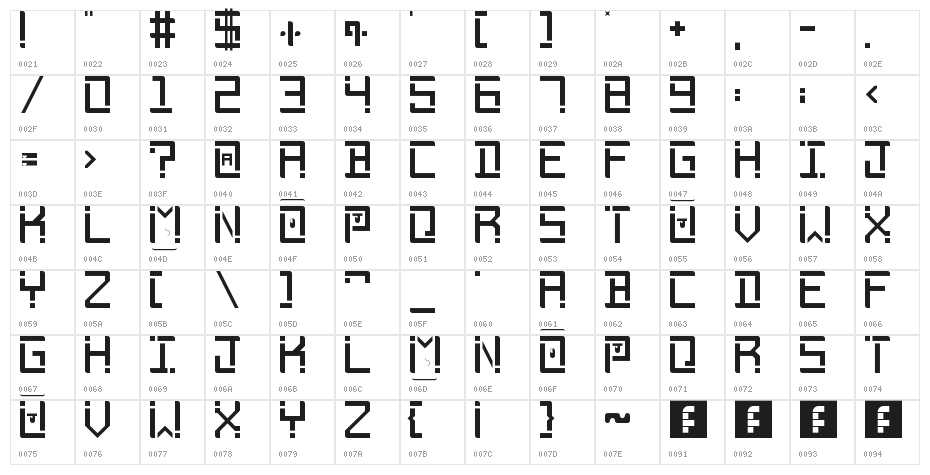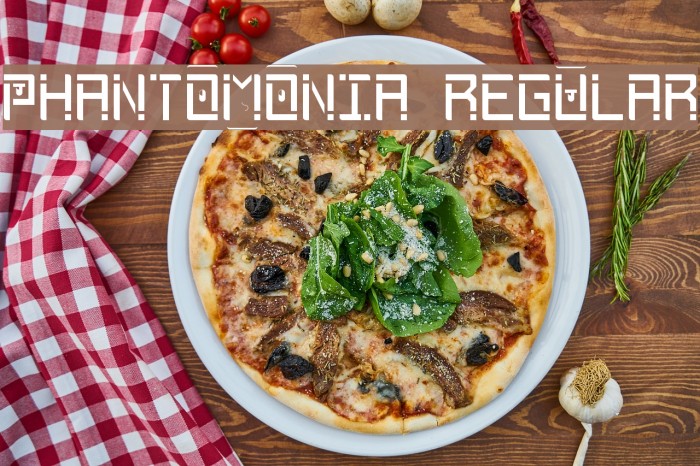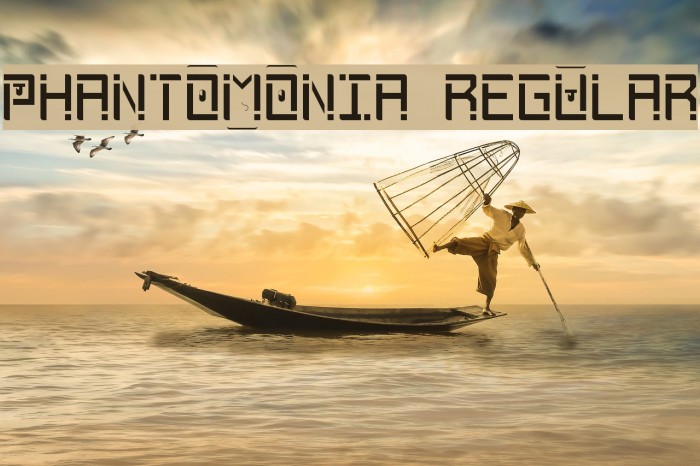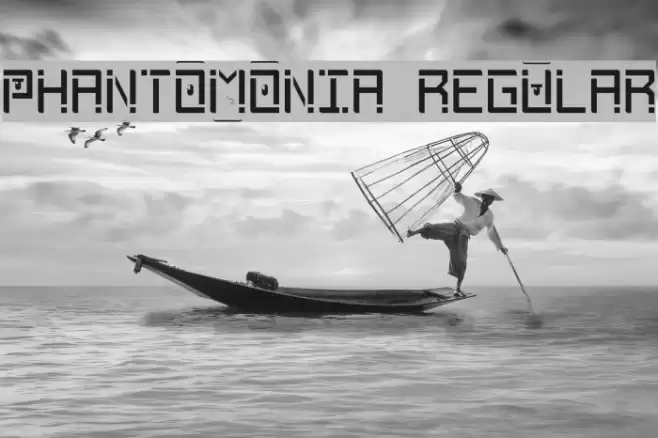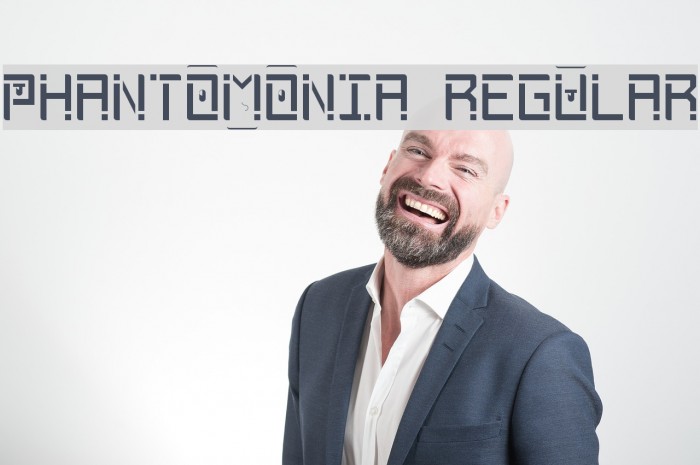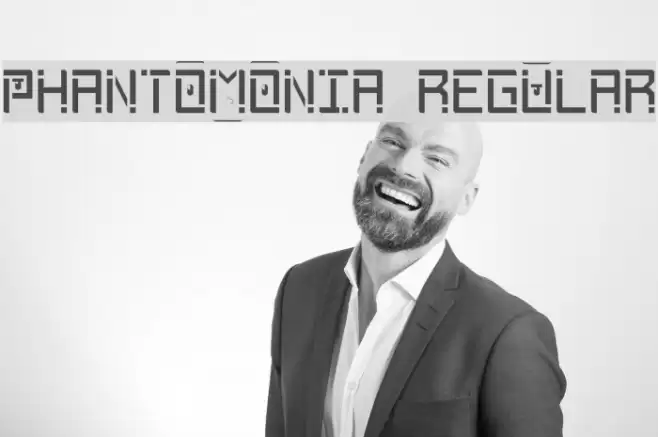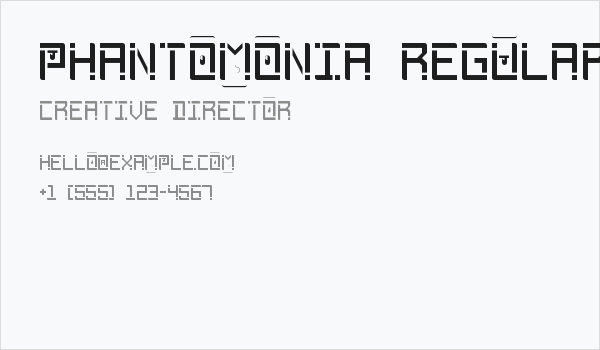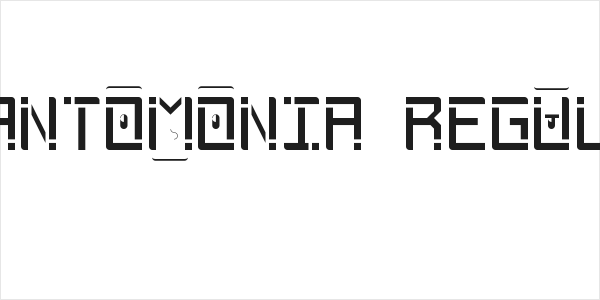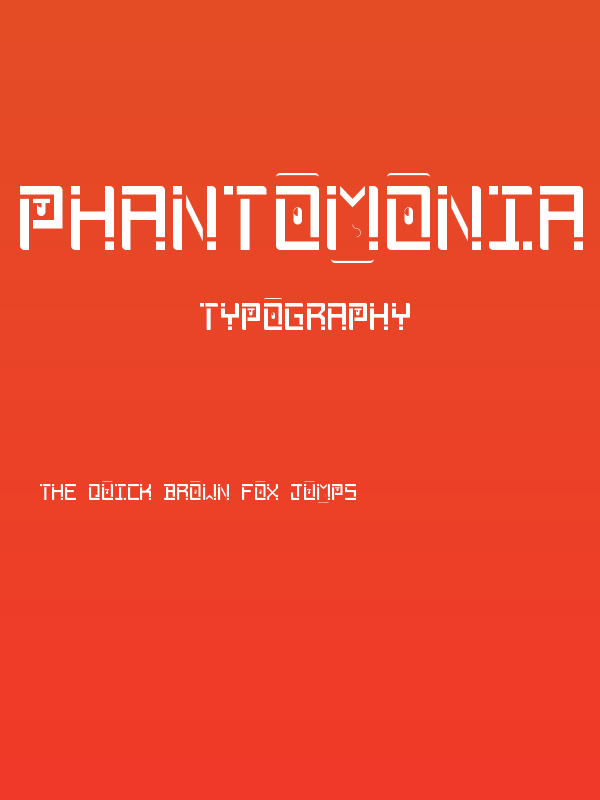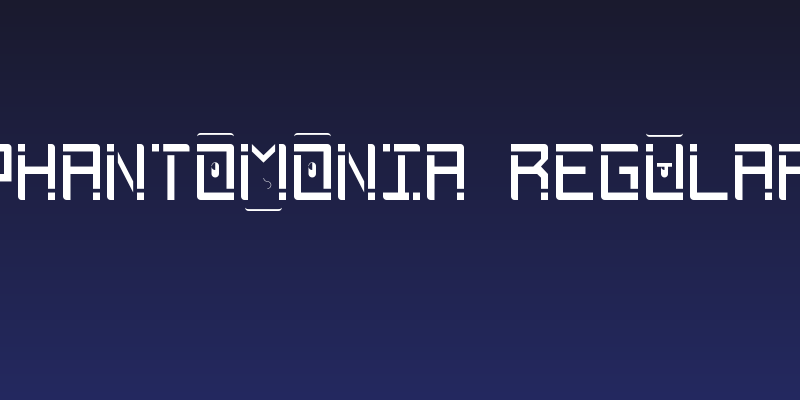
Phantomonia Regular Font
Phantomonia Regular Description
This font features a bold, geometric design with a futuristic and digital aesthetic. The characters are constructed with a combination of straight lines and right angles, giving it a blocky and mechanical appearance. The uppercase and lowercase letters maintain a consistent style, with some characters incorporating unique elements such as horizontal bars or small cutouts, adding to the font's distinctiveness. The numbers follow the same geometric pattern, ensuring uniformity across all characters. Special characters are also designed to match the overall theme, making this font suitable for projects that require a modern and tech-inspired look.
| Proposed Projects | Ideal for tech-related branding, digital interfaces, video game titles, and futuristic-themed posters. |